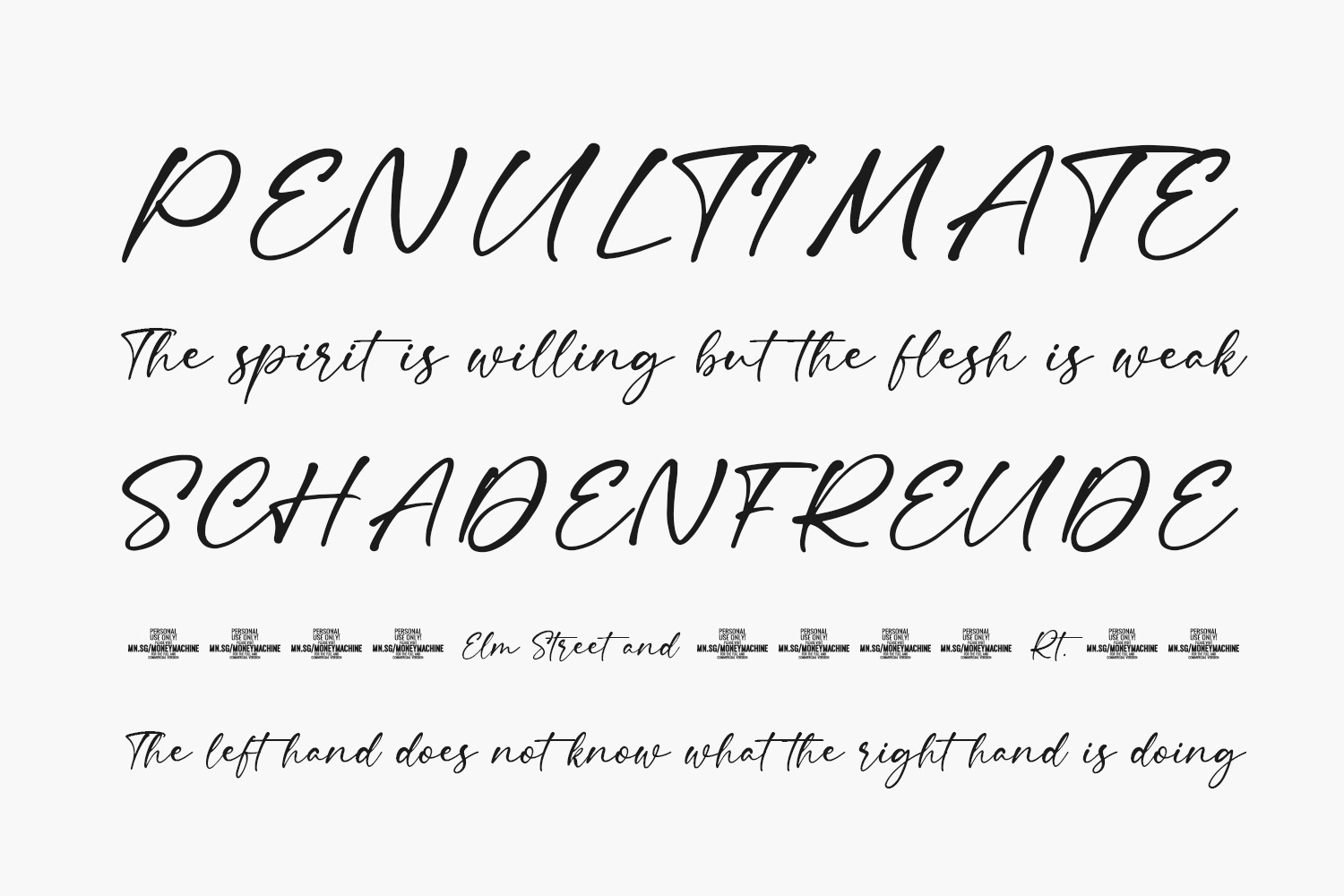
Steinfeld
Steinfeld Free Font is an elegant script font with a contemporary atmosphere and impeccable form, inspired by timeless classic calligraphy. Not too thin and not too thick, balanced and varied, this font was designed to enhance the beauty of your projects. Steinfeld Free Font was designed by Vilogsign is a demo and free for personal use only. Please purchase the full version for commercial use.